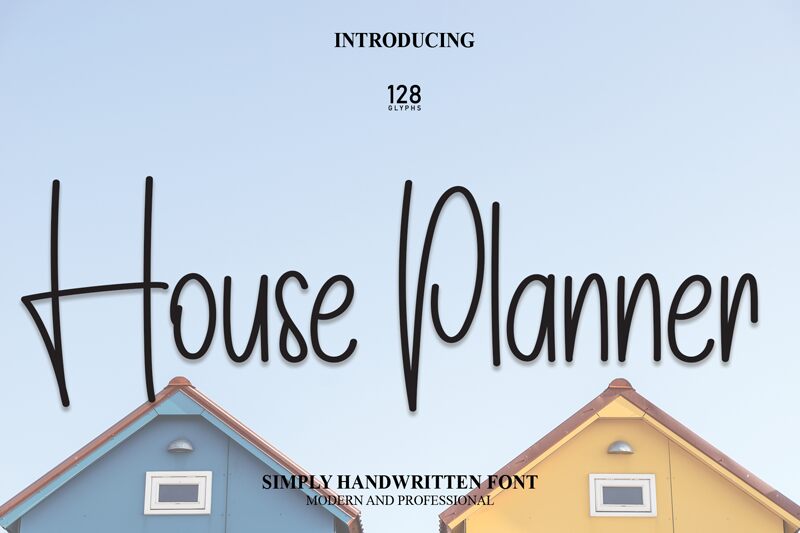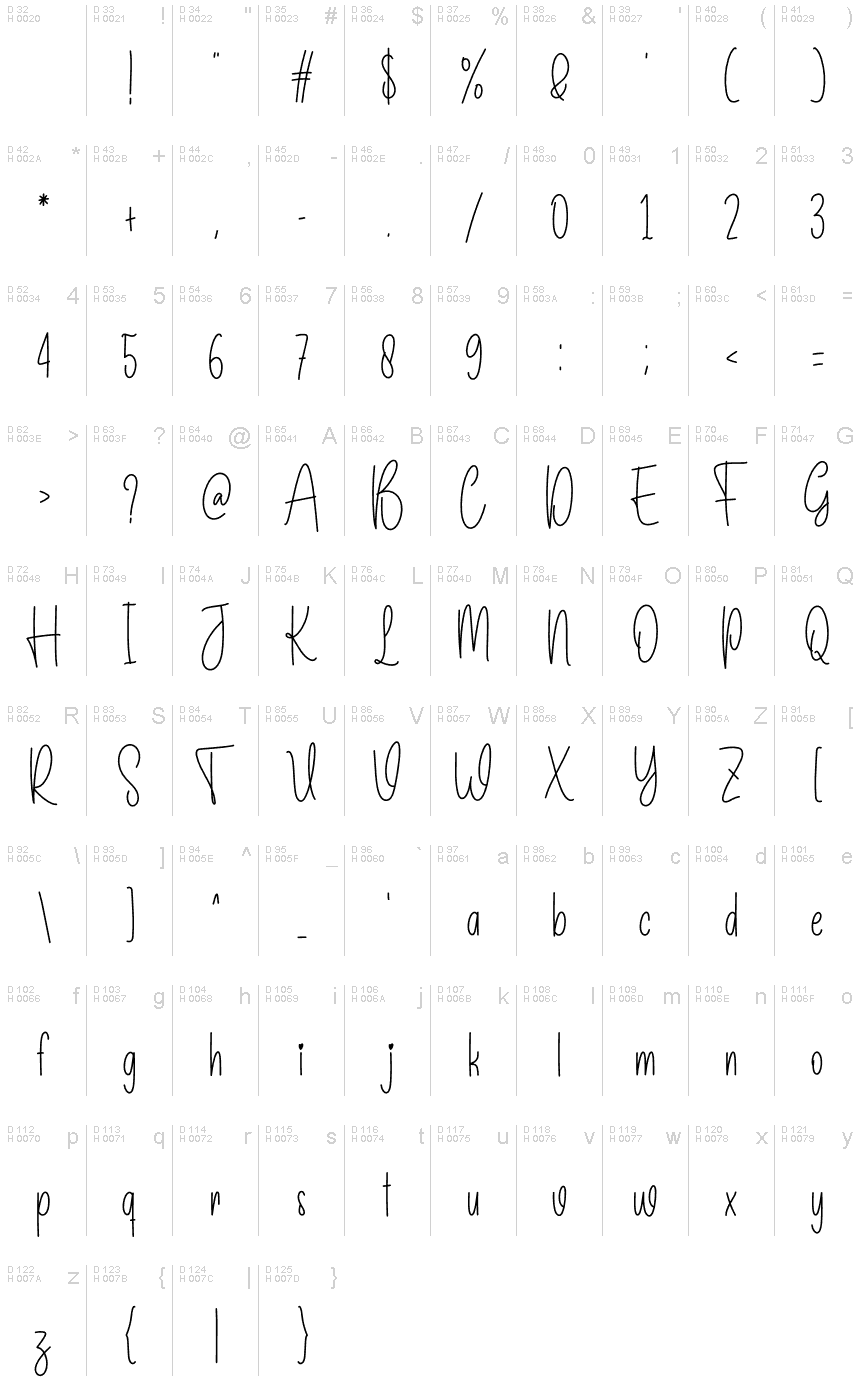
House Planner
House Planner, a handwritten masterpiece from the creative mind of Scratchones, epitomizes the charm and elegance of personal touch in typography. With its semi-light weight, this font dances between delicate finesse and readable clarity, making it an excellent choice for designers who wish to inject a dose of warmth and authenticity into their projects.
The condensed style of House Planner allows for efficient use of space while maintaining legibility, making it ideal for applications where space is at a premium but aesthetic impact is crucial. Its fluid letterforms suggest a casual yet sophisticated vibe that could enhance everything from personalized stationery to editorial headers.
Visually, House Planner strikes a balance between informality and structure; its characters boast an organic flow that mimics natural handwriting without sacrificing uniformity. This duality ensures that it can be versatile enough for various creative endeavors—from branding materials to web design—cementing its place as a go-to font for those seeking a stylish handwritten feel with practical application.